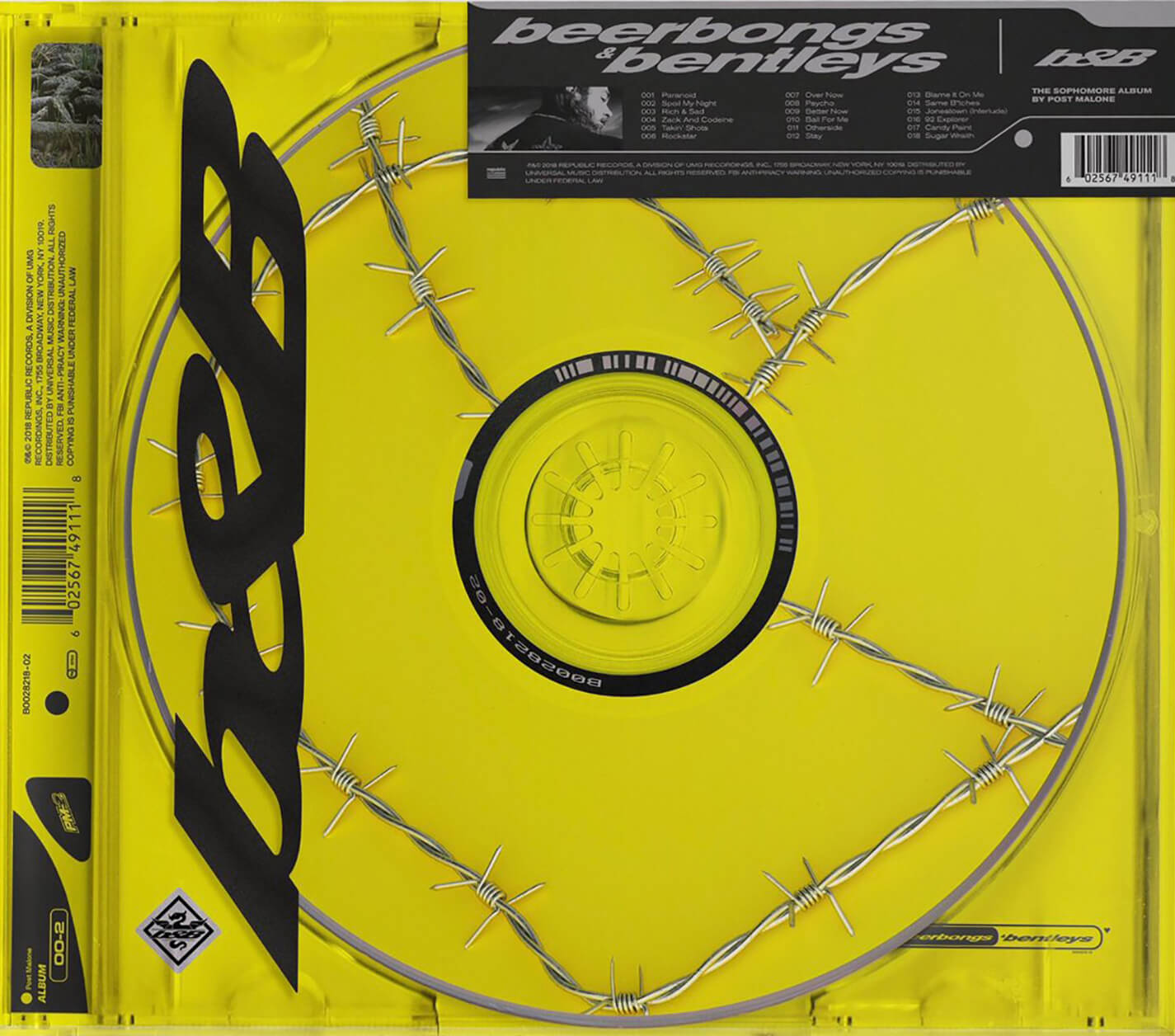
Beerbongs & Bentleys Font
Fonts in UseBeerbongs & Bentleys is a chart-topping album by Post Malone, featuring hits such as "Rockstar" and "Psycho", known for its mix of genres including hip-hop, pop, and rock.
The name of the album appears to be stylized in lowercase and with a slight tilt, using the Akzidenz Grotesk Bold Extended Italic font. The back cover's tracklist predominantly features the Bold Extended variant of Akzidenz Grotesk.